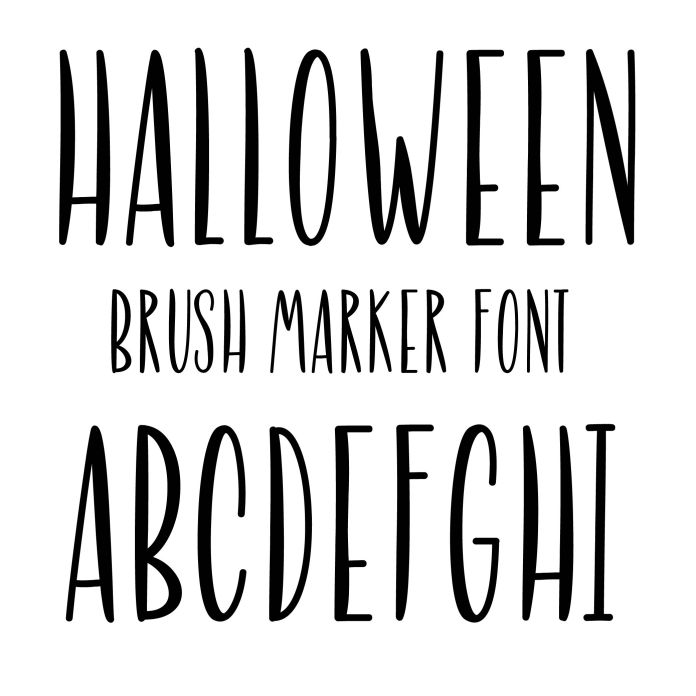
Halloween brush marker font
Halloween brush marker is a tall handwriting font fun for holiday crafts, signs, labels, planner, calendar, school, and personalization projects. All caps.